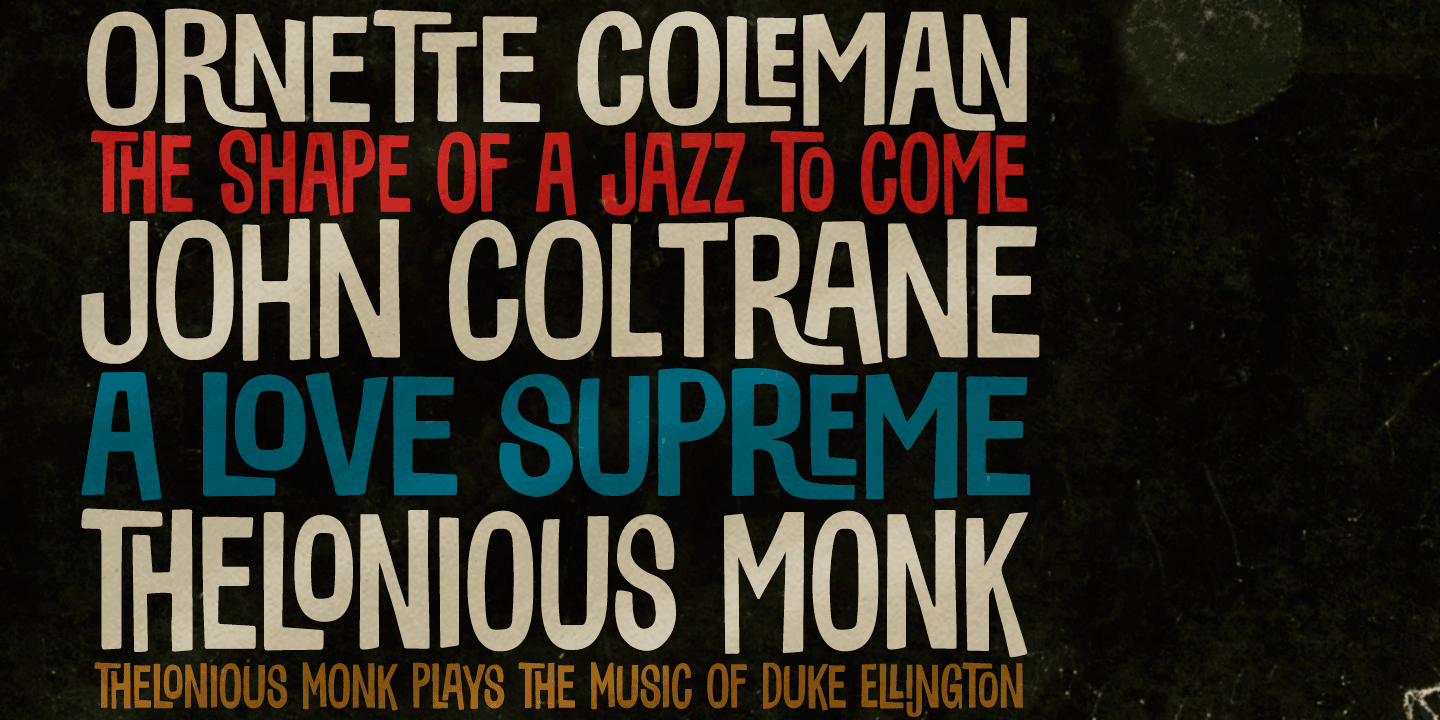
Sunbeat is a hand display font family. This typeface has three styles and was published by PintassilgoPrints.
Sunbeat is a quite groovy face, but that’s not all: this upbeat family is packed with cool interlocking pairs for adding that twist when you need it. Available in three tones, suitable only for projects that sound great. Hell yes!